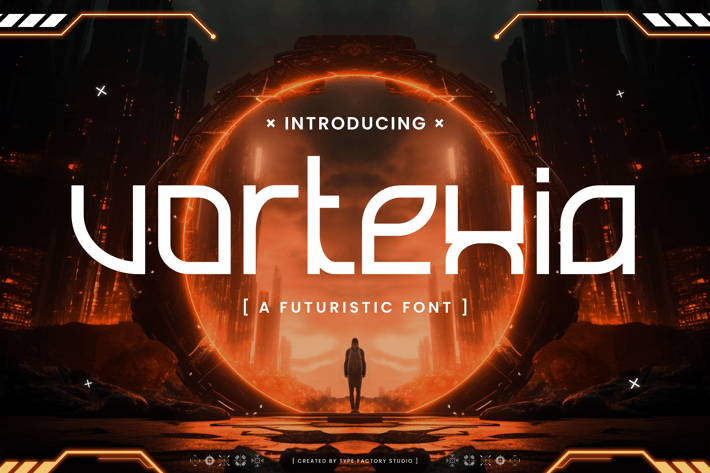
Vortexia is a cutting-edge futuristic font that embodies the essence of innovation and modernity. With its sleek lines and geometric shapes, this typeface is perfect for technology-related projects, sci-fi themes, and any design that aims to convey a forward-thinking aesthetic. The unique letterforms of Vortexia create a visually striking impact, making it ideal for branding, product packaging, and digital interfaces. Whether you're developing a futuristic app, designing a space-themed poster, or creating bold marketing materials, Vortexia brings an otherworldly vibe that captivates and engages your audience.